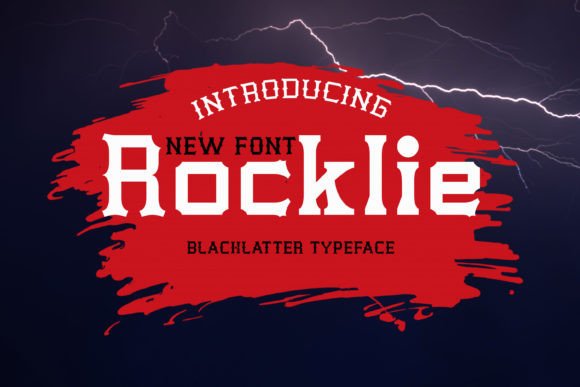
Introducing Rocklie Font, the ultimate choice for beauty logos! This stunning blackletter font, created by the talented Canden Meutuah, is a modern serif masterpiece that will elevate your designs to new heights.
Rocklie Display font Blackletter is not just your ordinary font. It comes in a modern and classy style, perfect for adding a touch of luxury and style to any project. With access to a wide range of alternative letters and ligatures through its OpenType feature, you have the freedom to customize and personalize your designs like never before.
What sets Rocklie apart is its versatility. Whether you're working with large or small sizes, this font shines in every setting. Its elegant appearance and luxurious impression make it the perfect choice for branding projects, logo design, clothing branding, packaging, and so much more.
Imagine creating captivating magazine titles, eye-catching advertisements, or even designing trendy t-shirts with this font. Its unique blend of masculine and feminine qualities makes it suitable for any project that aims to make a statement.
Rocklie Font is not just a font; it's a powerful tool that will captivate your audience and leave a lasting impression. Its eye-catching design combined with its extensive range of letters and ligatures ensures that your designs will stand out from the crowd.
Experience the beauty and elegance of Rocklie Font and watch your designs come to life. Be the envy of your competitors and leave a lasting impression on your audience. Rocklie Font is your secret weapon for creating stunning, unforgettable designs.